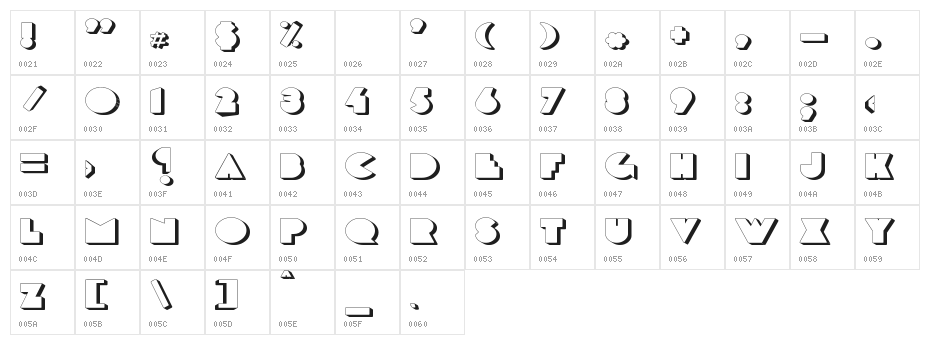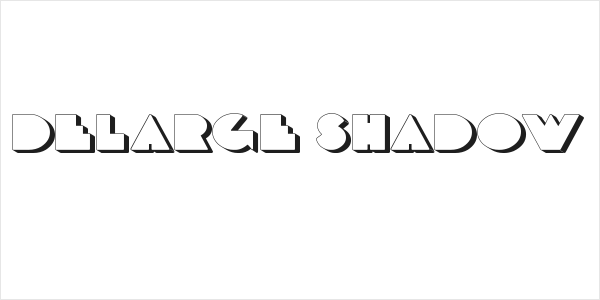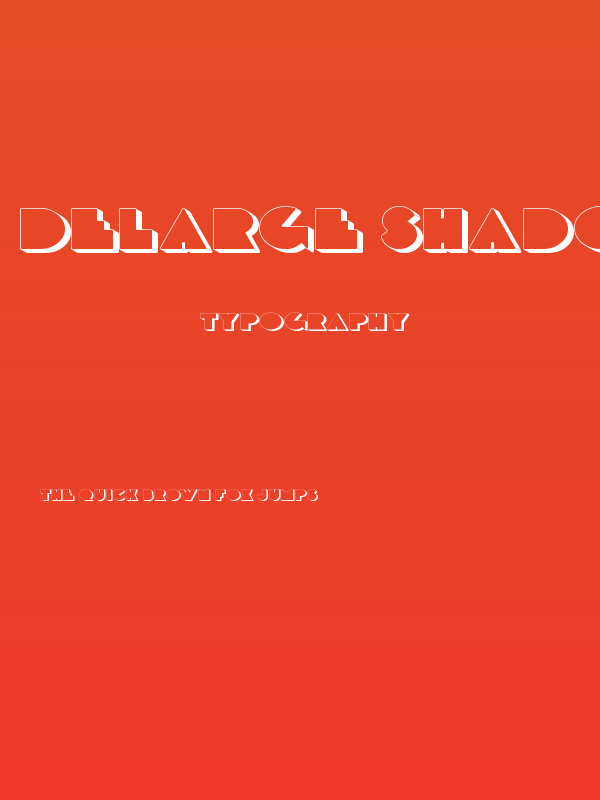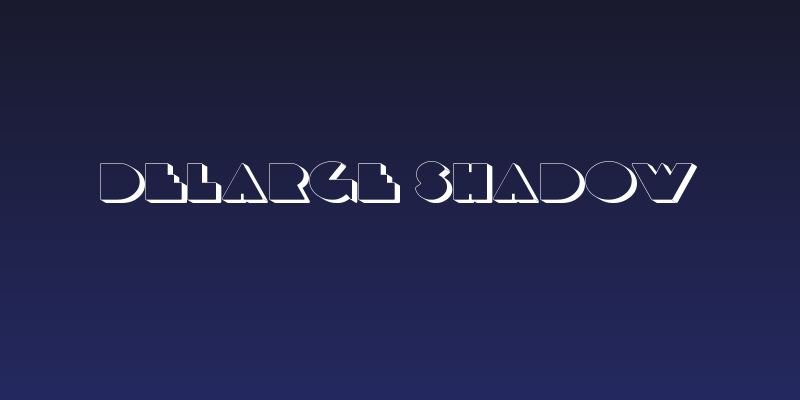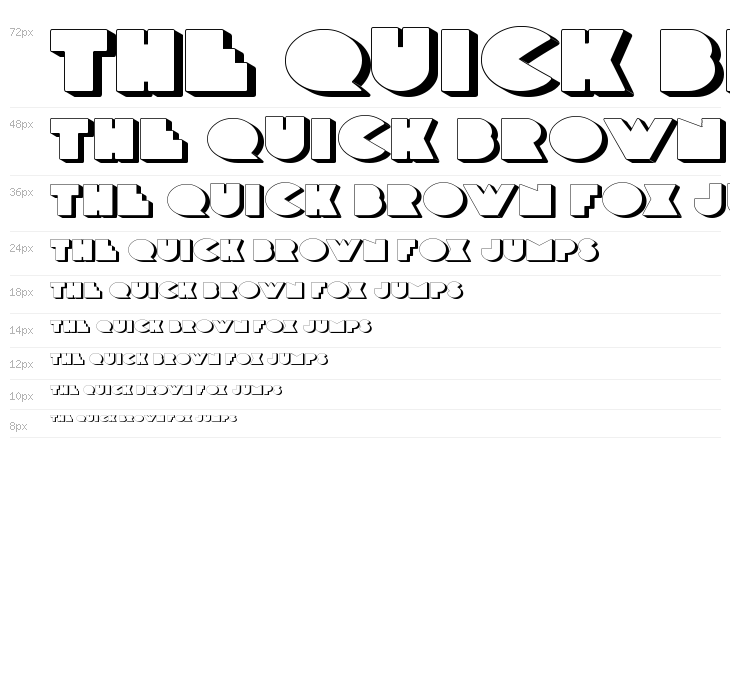
DeLarge Shadow Font
DeLarge Shadow Description
This font features a bold, geometric design with a distinct shadow effect that gives it a three-dimensional appearance. The characters are constructed with sharp angles and clean lines, creating a modern and impactful look. The uppercase and lowercase letters maintain a consistent style, with the shadow adding depth and visual interest. Numbers and special characters are designed to match the boldness and geometric nature of the alphabet, ensuring a cohesive appearance across all glyphs. The font's unique shadow effect makes it stand out, making it ideal for attention-grabbing designs.
| Proposed Projects | Ideal for poster designs, headlines, logos, and any project requiring a bold, eye-catching typeface. |